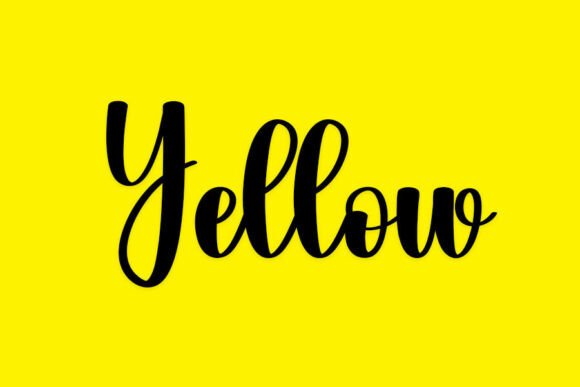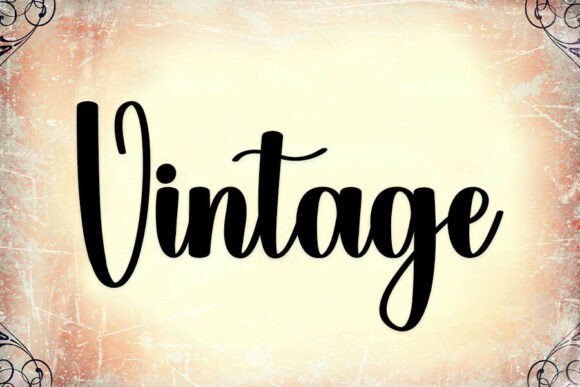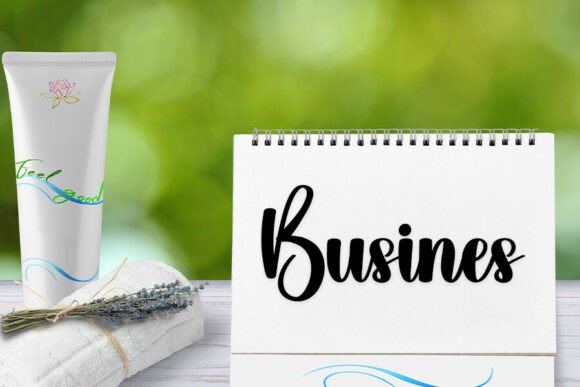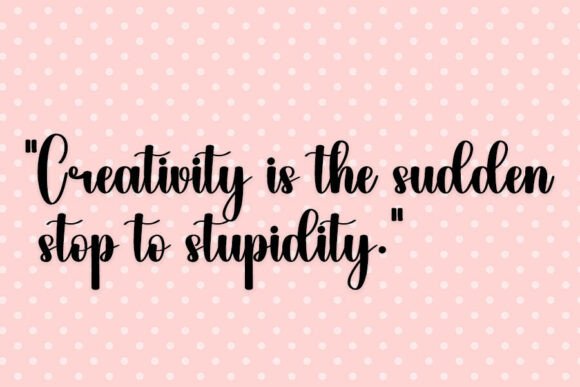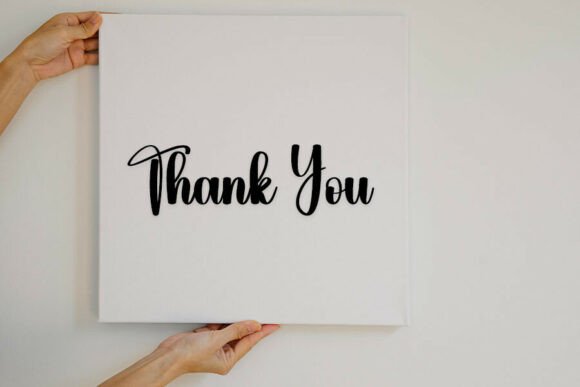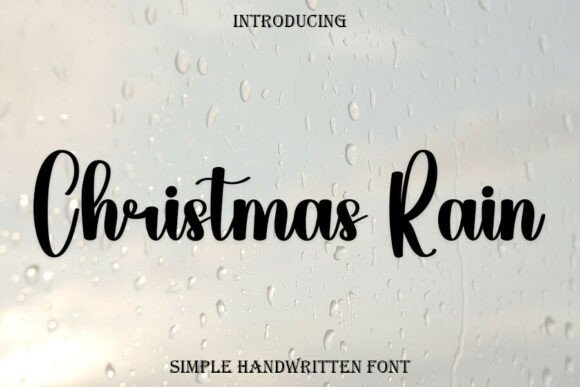
Introducing Christmas Rain Font: The Perfect Addition to Your Design Projects
Are you looking for a font that exudes joy, romance, and elegance? Look no further than Christmas Rain Font, a sweet and cursive handwritten font that’s perfect for a variety of design projects. In this article, we’ll dive into the features and benefits of Christmas Rain Font, and explore how it can elevate your designs to the next level.
The Charm of Christmas Rain Font
Christmas Rain Font is a beautiful, cursive handwritten font that’s designed to add a touch of whimsy and romance to your designs. Its gentle, flowing lines and delicate curves make it perfect for creating elegant and sophisticated designs that are sure to impress. Whether you’re working on a branding project, a wedding invitation, or a greeting card, Christmas Rain Font is the perfect choice.
One of the best things about Christmas Rain Font is its versatility. This font can be used on a wide range of design projects, from logos and branding to wedding invitations, greeting cards, and more. Its elegant and cursive design makes it perfect for:
- Branding and logos: Create a lasting impression with a custom logo that showcases your brand’s personality.
- Wedding things: Add a touch of romance and elegance to your wedding invitations, save-the-dates, and other stationery.
- Greeting cards: Create beautiful and heartfelt greeting cards for special occasions like Christmas, Valentine’s Day, and more.
- Fashion and lookbooks: Add a touch of sophistication and glamour to your fashion designs and lookbooks.
- Marketing promotion: Create eye-catching promotional materials that showcase your brand’s personality and style.
Why Choose Christmas Rain Font?
So, why choose Christmas Rain Font for your design projects? Here are just a few reasons:
- Elegant and sophisticated: Christmas Rain Font has a unique, elegant, and sophisticated design that’s sure to impress.
- Cursive and flowing: Its cursive and flowing lines make it perfect for creating beautiful and eye-catching designs.
- Versatile: This font can be used on a wide range of design projects, from logos and branding to wedding invitations and greeting cards.
- Easy to read: Despite its elegant design, Christmas Rain Font is easy to read and understand, making it perfect for body text and headlines.
Tips for Using Christmas Rain Font
Here are a few tips for using Christmas Rain Font in your design projects:
- Pair it with a bold font: Pair Christmas Rain Font with a bold font to create a striking contrast and add visual interest to your designs.
- Use it for headlines: Use Christmas Rain Font for headlines and titles to add a touch of elegance and sophistication.
- Experiment with colors: Experiment with different colors and textures to add depth and interest to your designs.
In conclusion, Christmas Rain Font is a beautiful and versatile font that’s perfect for a wide range of design projects. Its elegant and cursive design makes it perfect for adding a touch of romance and sophistication to your designs. Whether you’re a designer, crafter, or DIY enthusiast, Christmas Rain Font is a great addition to your font collection. So why wait? Download Christmas Rain Font today and start creating stunning designs that will leave a lasting impression!
Key Features of Christmas Rain Font
- Sweet and cursive handwritten font
- Elegant and sophisticated design
- Versatile and can be used on a wide range of design projects
- Perfect for branding, logos, wedding things, greeting cards, fashion, lookbooks, and marketing promotion